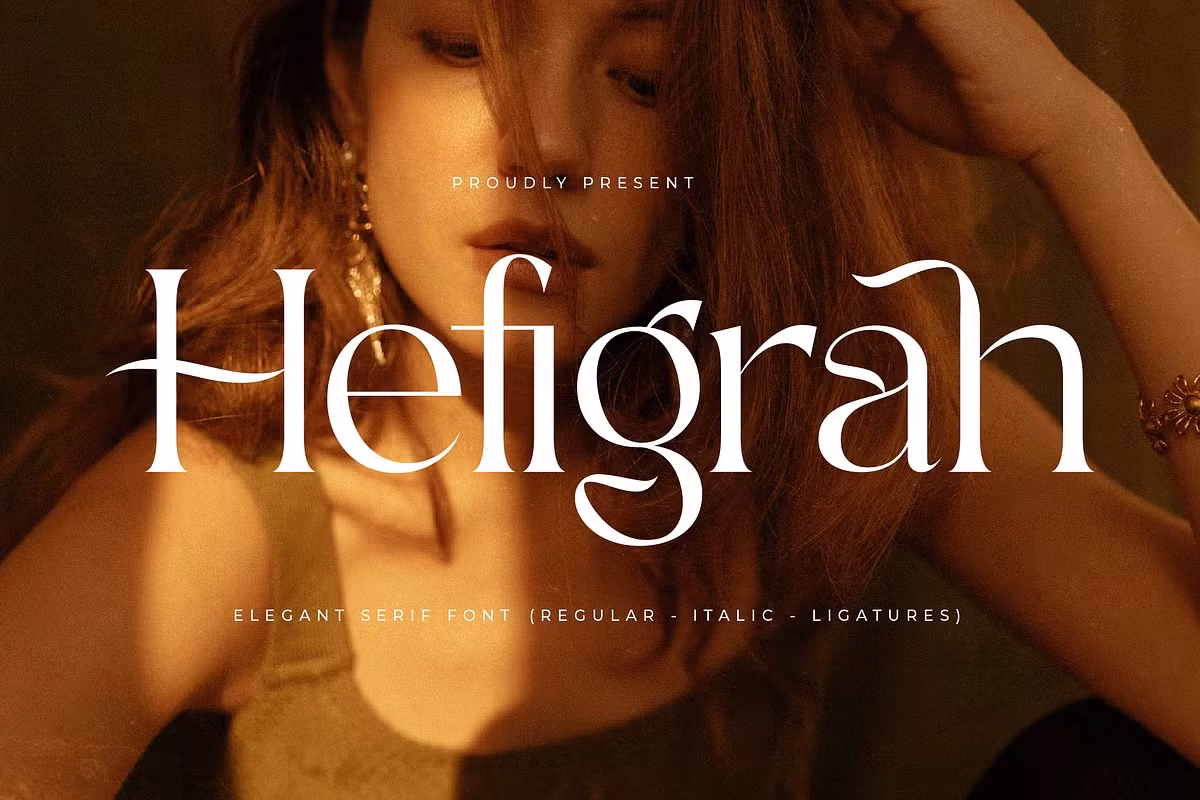
Hefigrah Elegant Serif Font Free Download is a sophisticated and stylish typeface that brings an air of elegance to any design. With its sharp serifs and sleek lines, this font is perfect for luxury branding, editorial layouts, high-end invitations, and more. Its refined appearance gives your projects a timeless, classic feel while maintaining a modern edge. Whether you're designing for a boutique, creating a fashion-forward campaign, or working on upscale product packaging, Hefigrah Elegant Serif Font Free Download allows you to test its stylish design in personal projects before purchasing a commercial license. Elevate your designs with this graceful and refined serif font that adds sophistication and charm to your creative work.